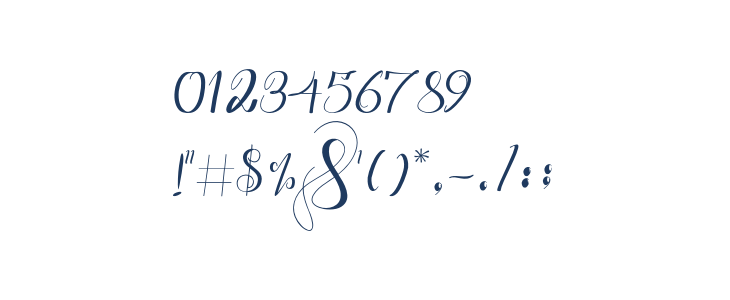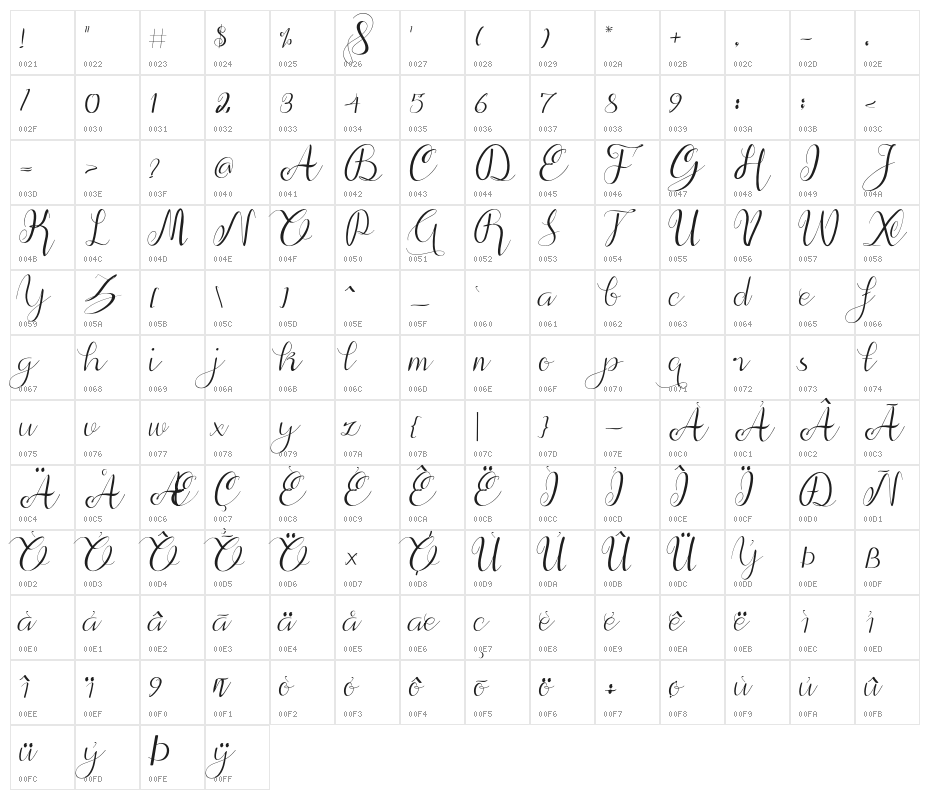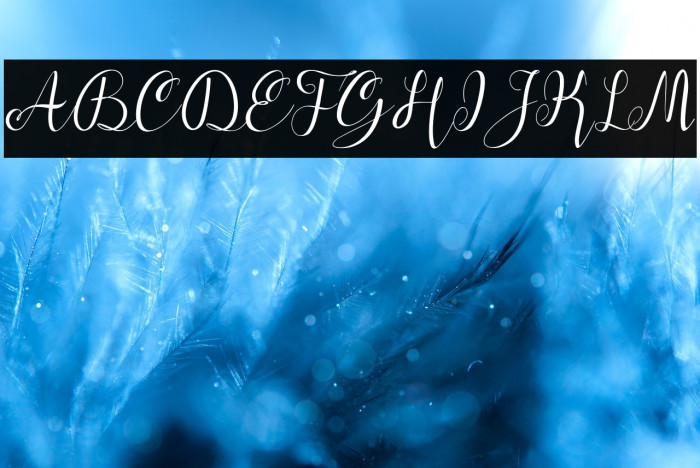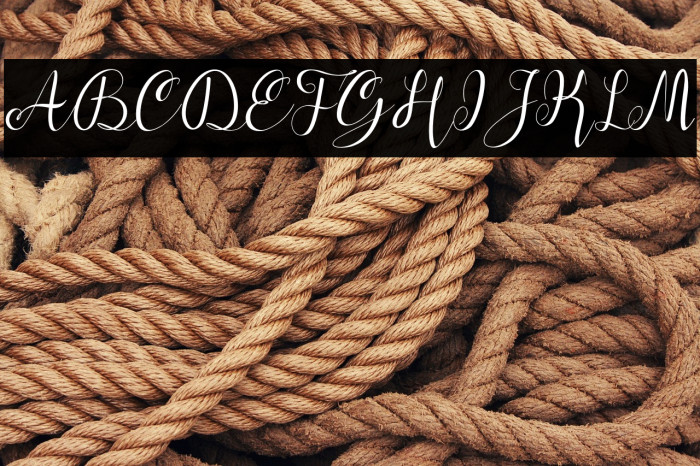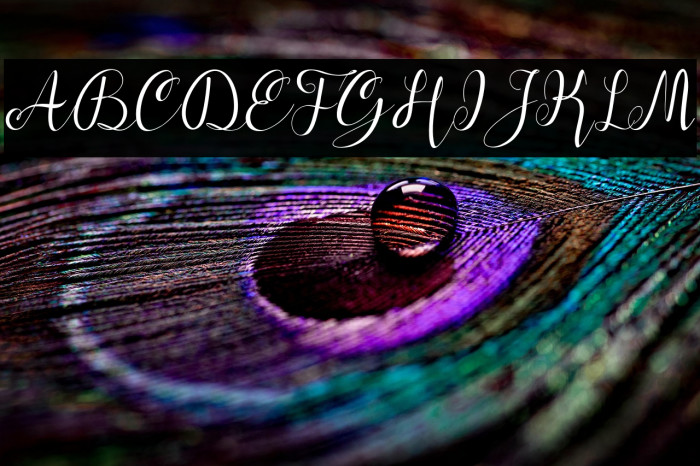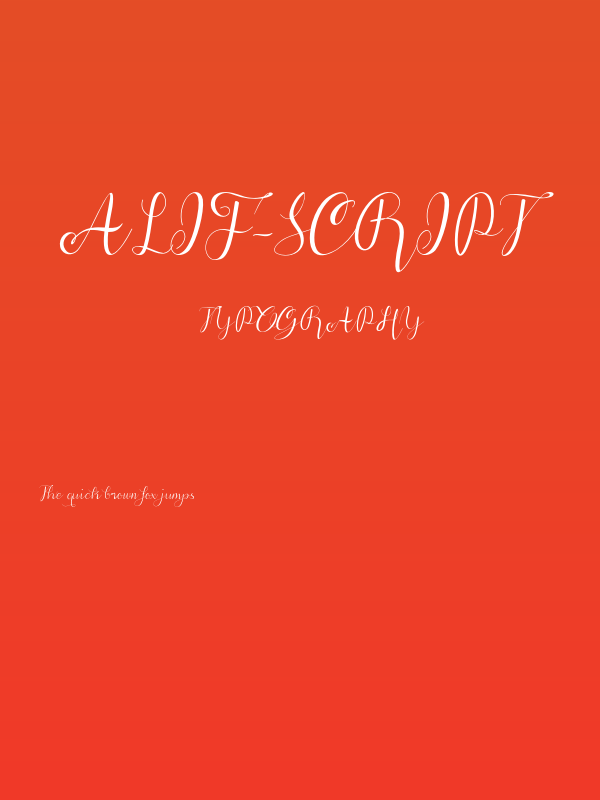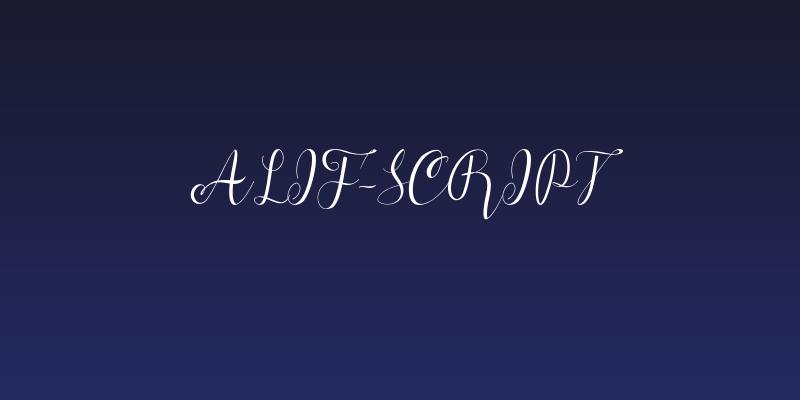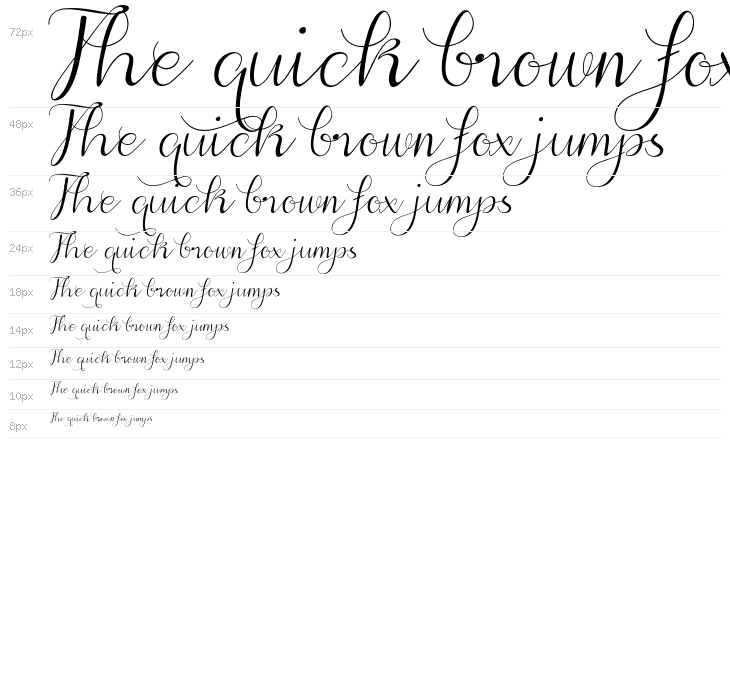
alif-script Font
alif-script Description
This elegant script font features flowing, cursive strokes that exude sophistication and grace. The uppercase letters are adorned with delicate loops and flourishes, adding a touch of formality and charm. The lowercase letters maintain a consistent style, with sweeping ascenders and descenders that create a harmonious rhythm. The numerals are designed with a similar flair, ensuring a cohesive look across all characters. Special characters are thoughtfully integrated, maintaining the font's overall aesthetic. This font is perfect for projects that require a touch of elegance and refinement.
| Overall Style | Elegant, Sophisticated |
| Use Case | Headlines, Invitations, Branding |
| Proposed Projects | Ideal for wedding invitations, elegant branding, luxury packaging, and decorative headlines. |